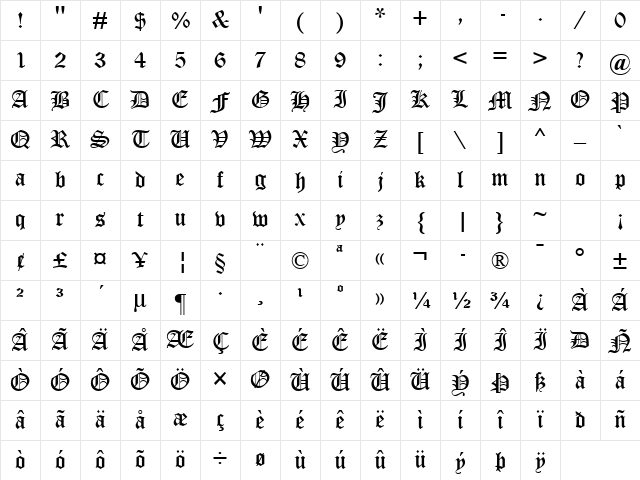
Old English Text MT Regular Free Font
Old English Text MT Regular
Foundry: Monotype Typography
Complete Old English Text MT Regular glyph index. Displaying only characters natively supported by Old English Text MT Regular font.
Design Context for Old English Text MT
Old English Text MT is a composed and adaptable typeface that performs quietly and consistently across a wide range of design contexts.
Who designed the Old English Text MT Regular font?